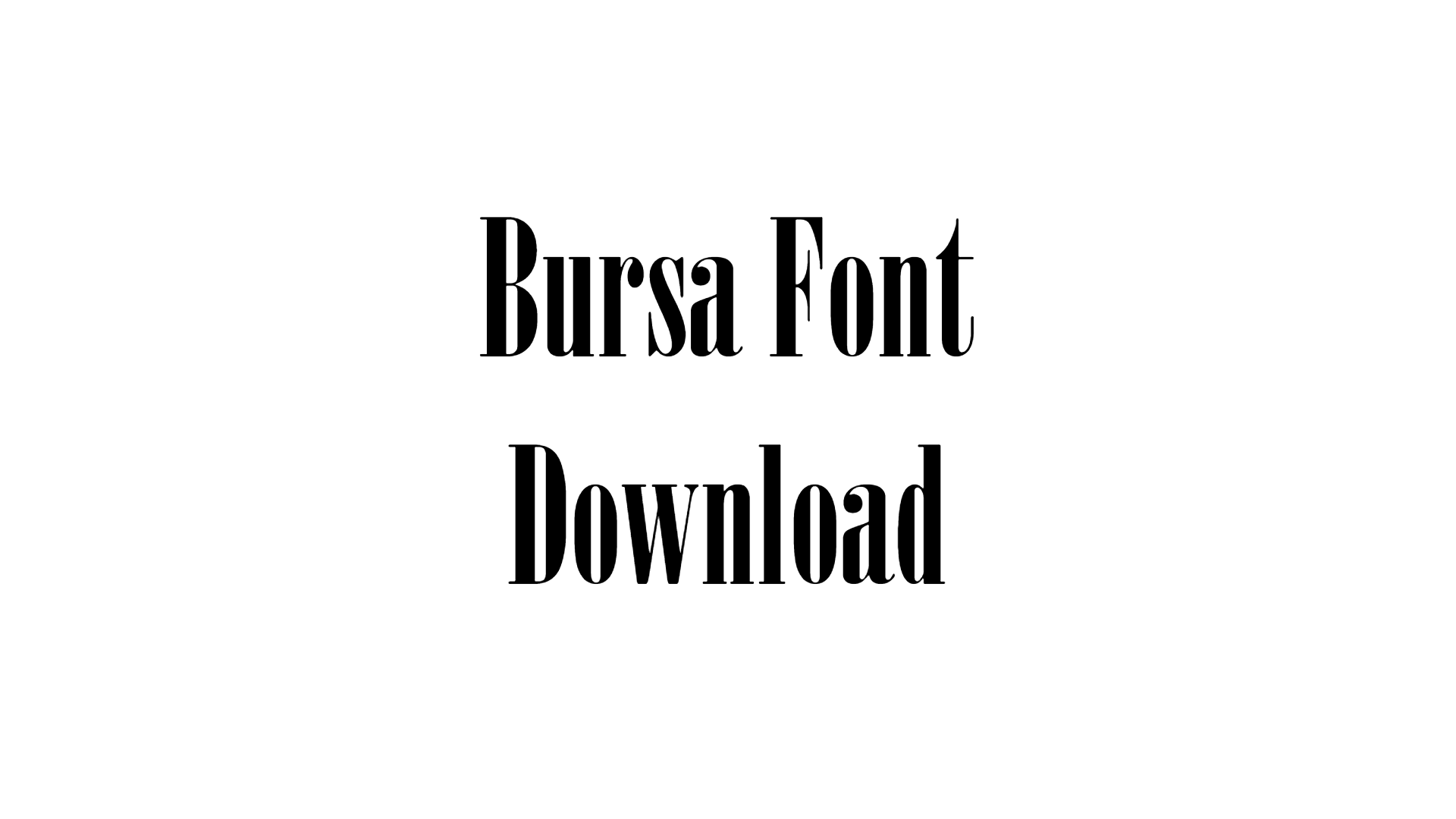
Bursa Font
Bursa
- Category: Basic font
What You Can Type With Bursa
Bursa covers the full alphabet in upper and lowercase, plus all ten numbers, so you can set names, dates and prices without switching fonts. Everyday marks like &, !, ? and @ are there too. Thanks to its accented letters, it also works for Spanish, French, German, Portuguese and Italian, not just English.
Where Bursa Works Best
Designers usually reach for fonts like Bursa when they're making everyday text, websites and clean logos. Fonts like this are workhorses: use them for body text, captions and anything people need to read quickly.
Does Bursa support accented letters?
Yes. Bursa includes the accented letters needed for Spanish, French, German, Portuguese and Italian, so it works for more than just English.
What fonts pair well with Bursa?
Add a more decorative display font for the headline if your design needs extra personality.